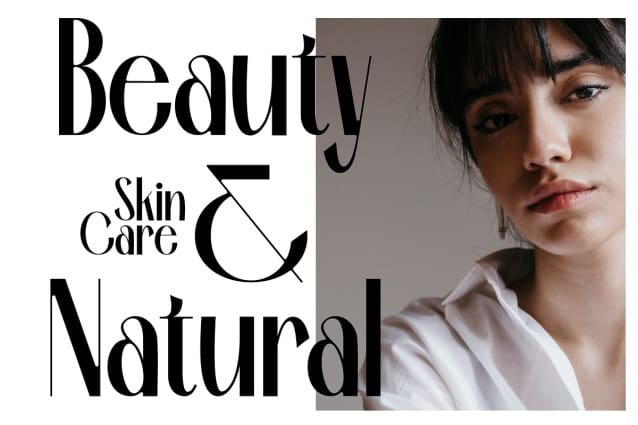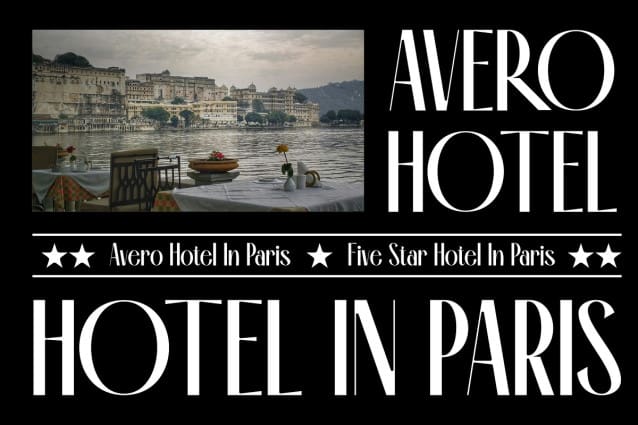
Rioze Font
Rioze Font – Sans serif Elegant Font.This font is a type of letter that has special characteristics that create the impression of luxury, elegance and firmness. This font involves a series of design elements such as balanced thin and thick lines, gentle curves, and elegant and clean serifs. The sharp corners and fine details of each character create a highly aesthetic impression and exude an air of elegance.